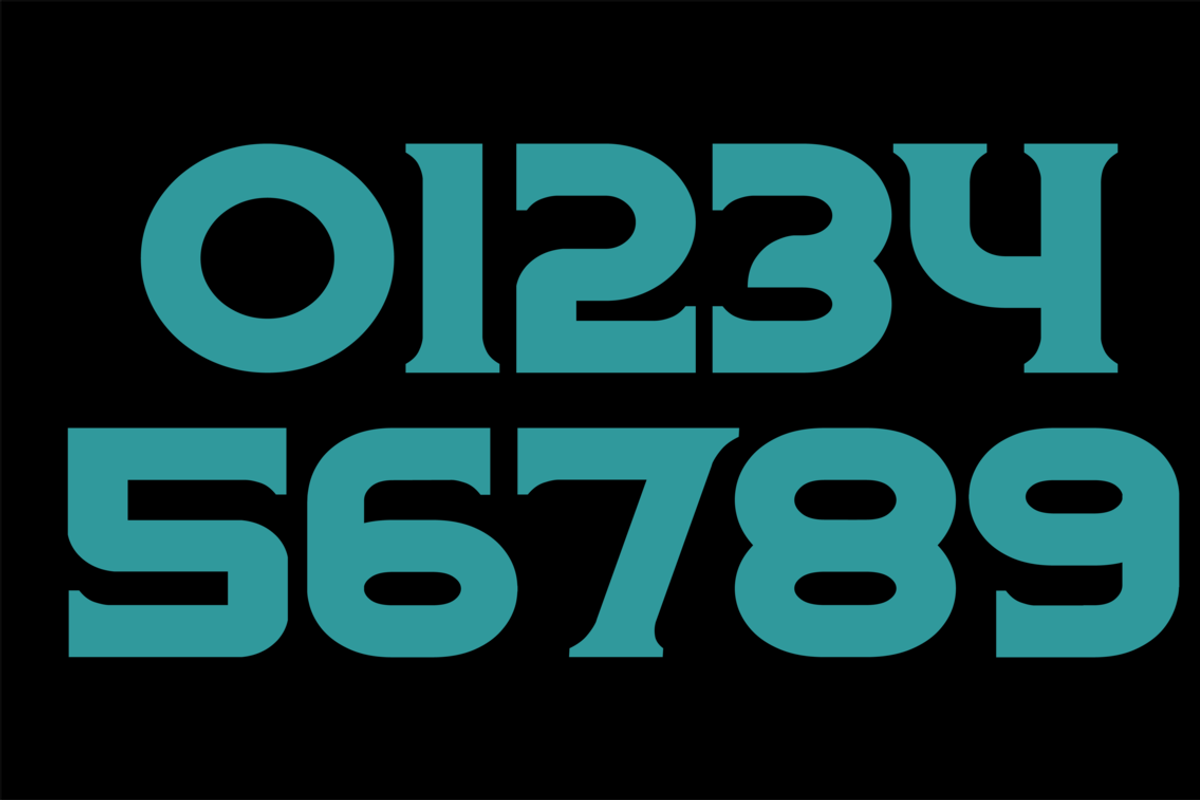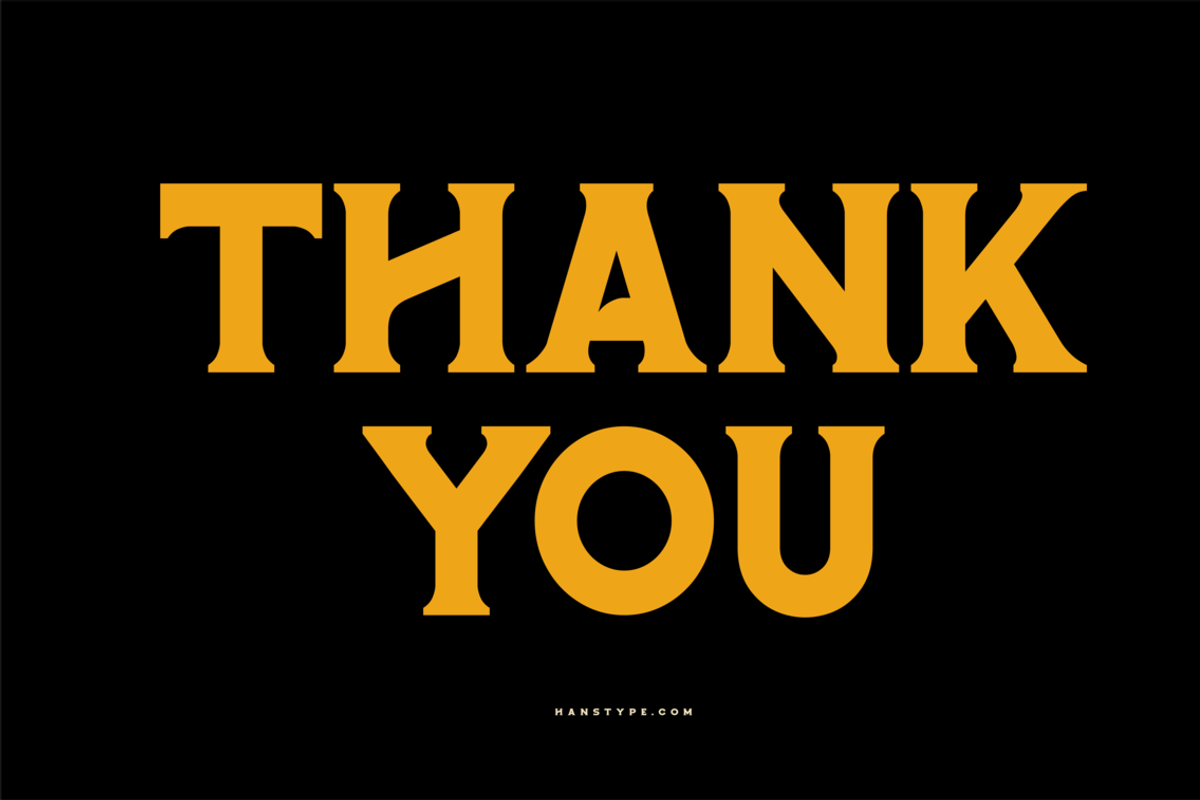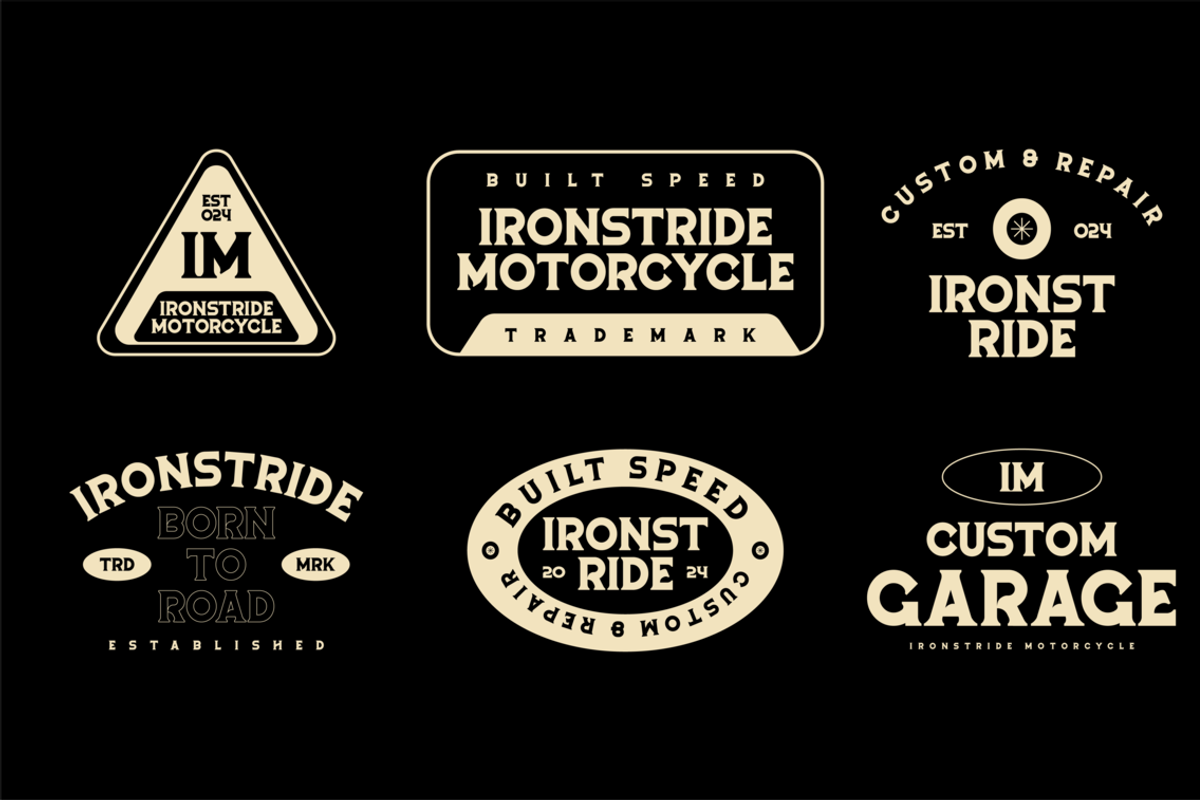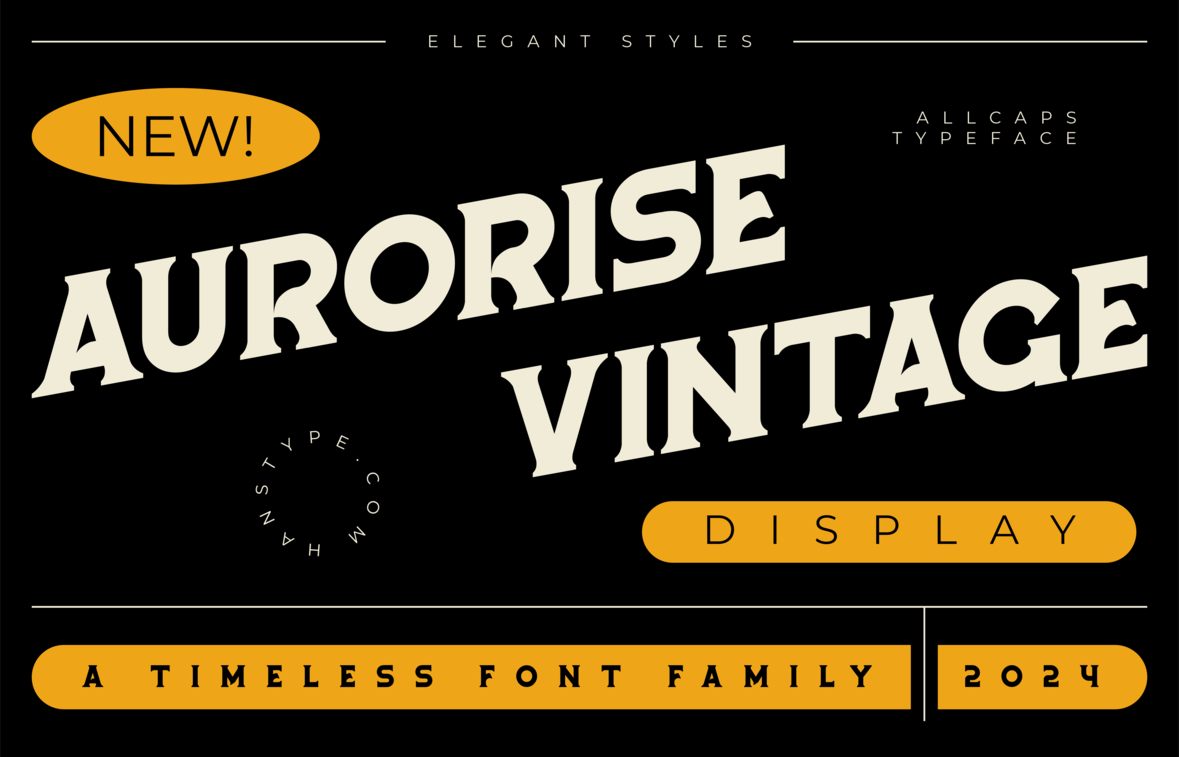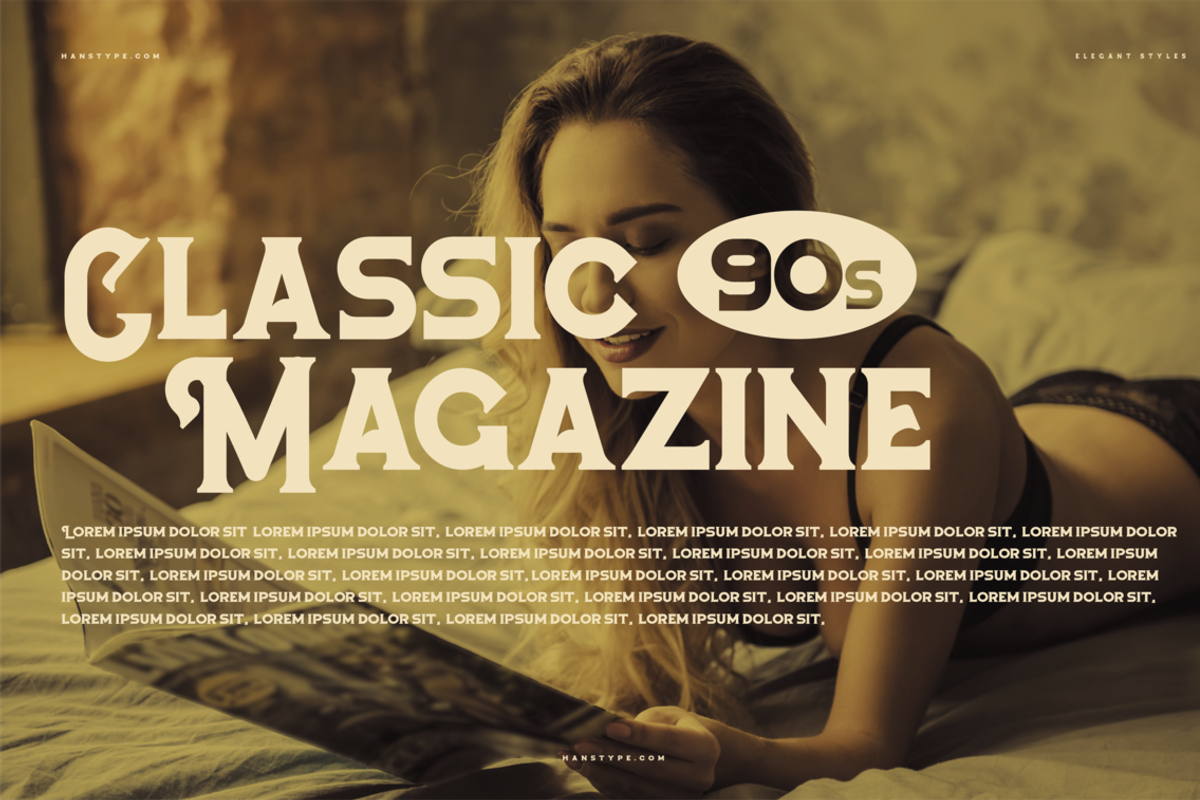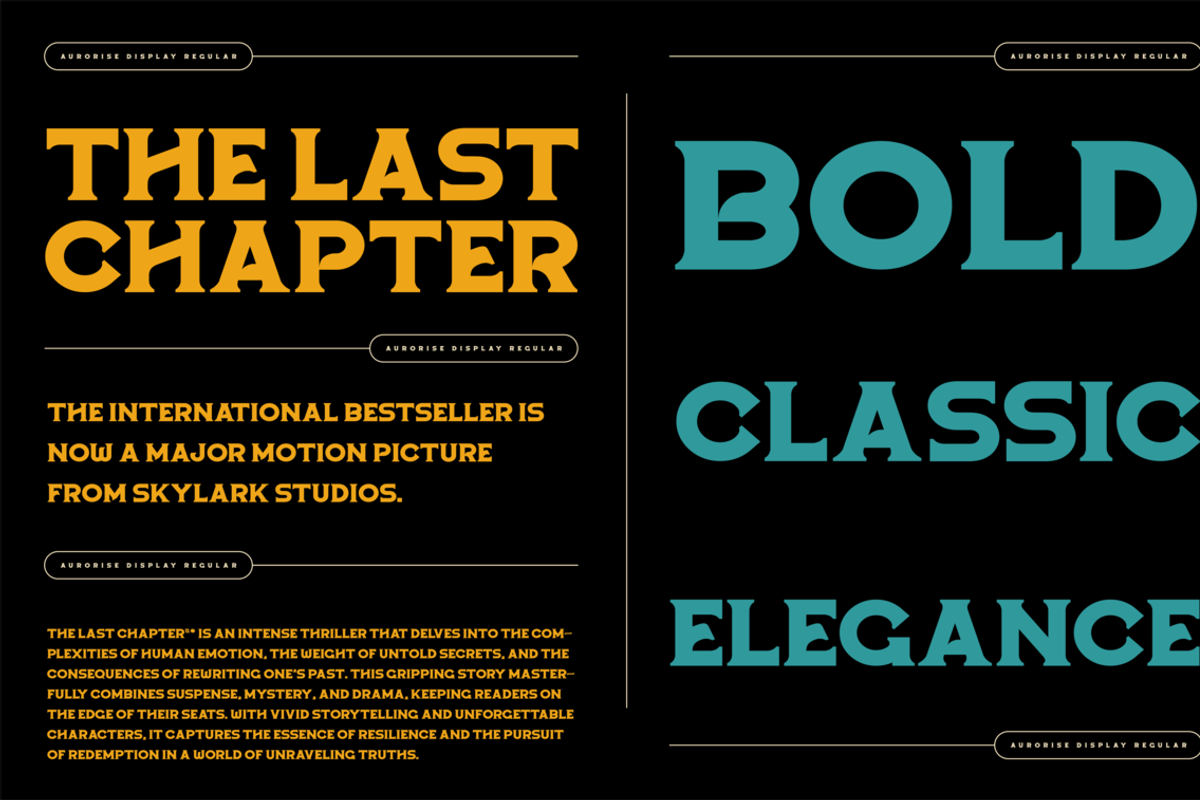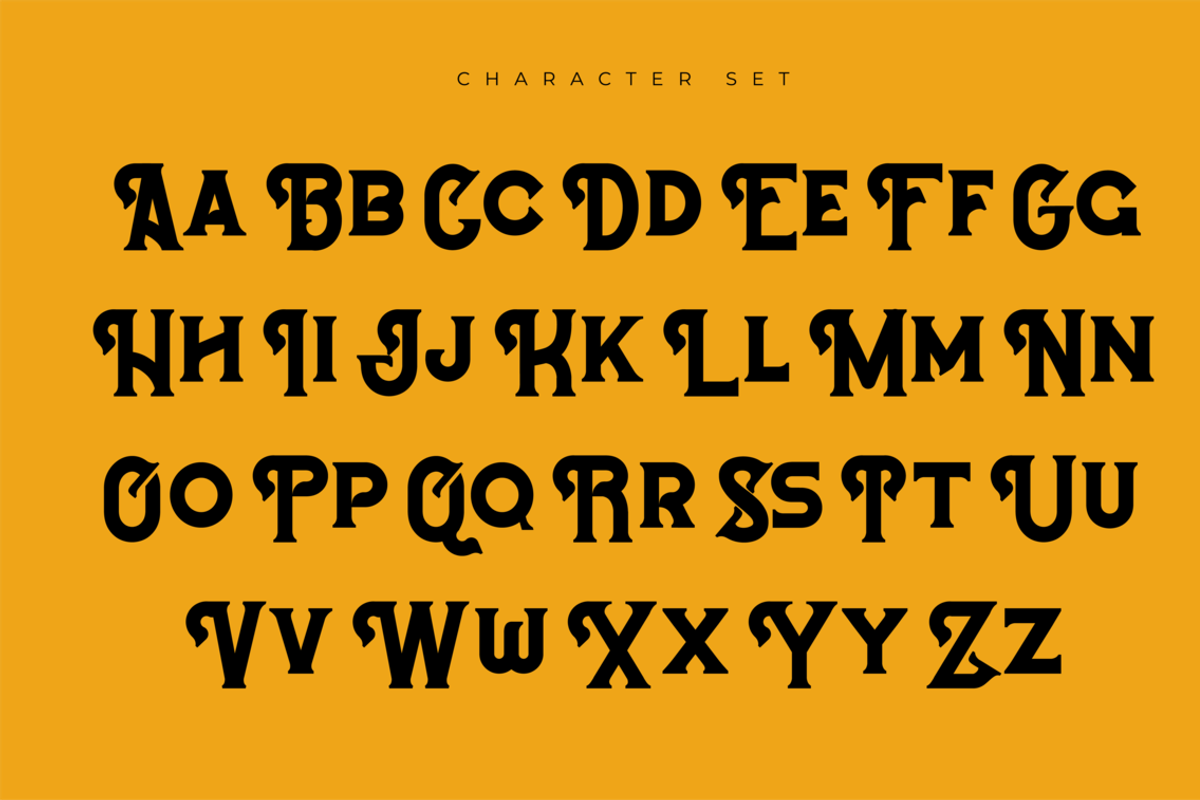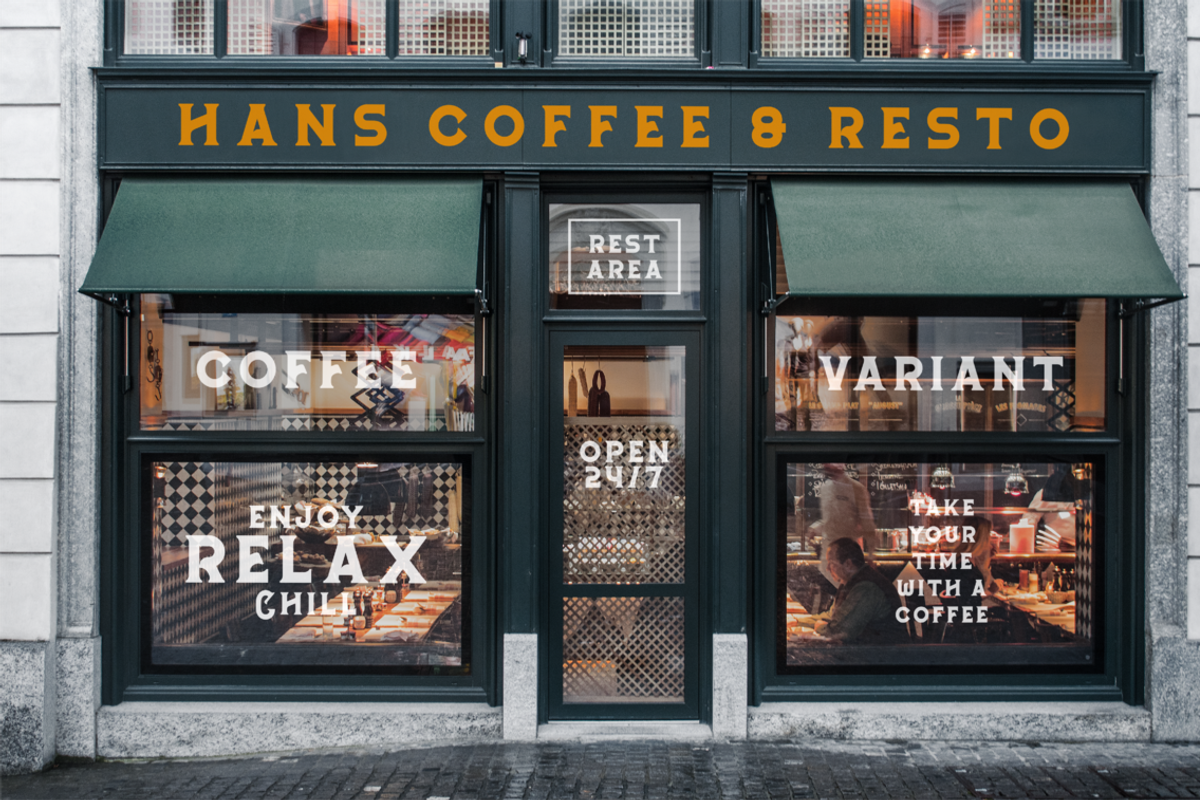
Aurorise - Bold Display Font
Aurorise is a sophisticated vintage display font that blends timeless elegance with a touch of modern refinement. Inspired by the soft glow of dawn and the classic typography of bygone eras, Aurorise delivers a perfect balance of delicate curves and bold strokes.